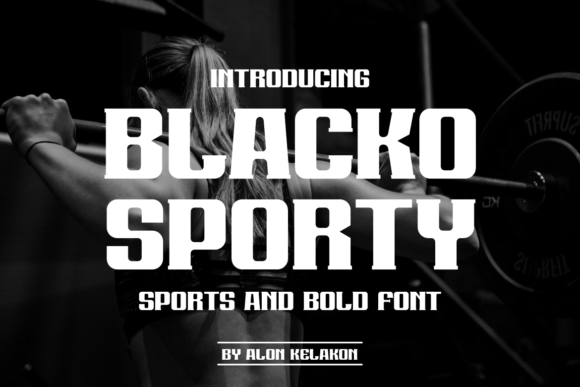
The Perfect Match for Your Next Design Project
Have you ever stared at a blank canvas, wondering which font will bring your creative vision to life? It’s that moment of uncertainty that sparks the search for the perfect font. You scroll through endless options, trying to find the one that perfectly captures the essence of your design. And then, it happens – you stumble upon Blacko Sporty Font, a bold, all caps sans serif font that screams trendiness and style.
Whether you’re crafting a stunning greeting card, designing a digital presentation, or working on a project that requires a touch of edginess, Blacko Sporty Font is the perfect companion. Its versatility and unique character make it a valuable asset for designers looking to elevate their work. With Blacko Sporty Font, you can add a dash of sophistication and modernity to any project, making it a must-have in your design arsenal.
Blacko Sporty Font Key Features
- Font Family: Blacko Sporty Font is a sans-serif font, designed for use in sports-related applications.
- Unique Characteristics: The font features bold and sporty lines, with a dynamic feel that is perfect for use in sports branding, advertising, and other applications where a high-energy feel is desired.
Designer Review: Blacko Sporty Font
Overall, I have mixed feelings about the Blacko Sporty Font. While it has some great qualities, it also has some notable limitations. Let’s start with the positives:
- ✨ The font is bold and eye-catching, perfect for headlines and titles. It grabs the viewer’s attention and conveys a sense of energy and dynamism.
- ✨ The font is highly customizable, with a wide range of style options available, including different weights, sizes, and colors.
- ✨ The font is highly legible, even at small sizes, making it a great choice for digital displays and mobile devices.
- ⚠️ The font may be too bold or overwhelming for certain types of content, such as body text or detailed instructions. It can be difficult to read for extended periods of time.
- ⚠️ The font may not be suitable for formal or professional settings, as it has a more casual and playful feel.
- ⚠️ The font may require additional styling or formatting to make it look its best, as it can be prone to pixelation or distortion at certain sizes.
Overall, the Blacko Sporty Font is a great choice for designers looking to add some energy and excitement to their projects. However, it’s essential to use it judiciously and consider the context and audience before applying it to your design.
Getting the Most Out of Blacko Sporty Font
For the best results, use Blacko Sporty Font in bold or italic to add emphasis to your text. Pair it with a clean and simple background to make it stand out.
Blacko Sporty Font is ideal for:
- Sporting events and apparel branding
- Health and wellness websites and marketing materials
- Adventure and outdoor-themed projects
Alternatives to Blacko Sporty Font
The Blacko Sporty Font is a sans-serif font known for its bold and energetic feel, often used in sports and fitness branding. Here are some alternatives for designers.
Bebas Neue is a sans-serif font with a strong, bold feel, making it suitable for headings and titles. It’s a great alternative to Blacko Sporty Font for sports and fitness branding, as well as for use in logos and wordmarks.
Comparison: Bebas Neue is more geometric and less rounded than Blacko Sporty Font, making it a better choice for clean and modern designs.
Rock Salt is a distressed sans-serif font that gives off a rugged, energetic feel, making it perfect for sports and action-related branding. It’s a great alternative to Blacko Sporty Font for designers who want a more edgy look.
Comparison: Rock Salt is more distressed and irregular than Blacko Sporty Font, making it a better choice for designs that need a bold, eye-catching feel.